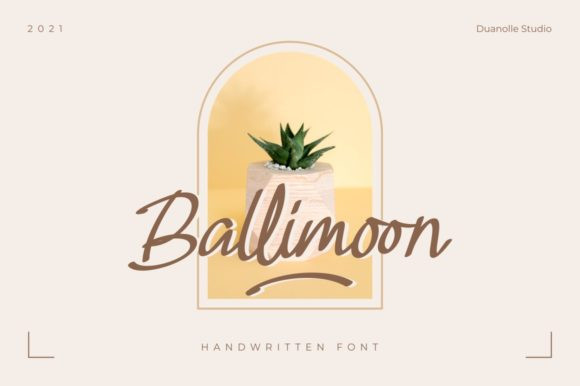
Ballimoon Font
Balimoon is a beautiful and refined script font. It has a classy, elegant and modern look that can be used for logos, branding, invitations, stationery, wedding designs, social media posts, and much more! This font is PUA encoded which means you can access all of the glyphs and swashes with ease!